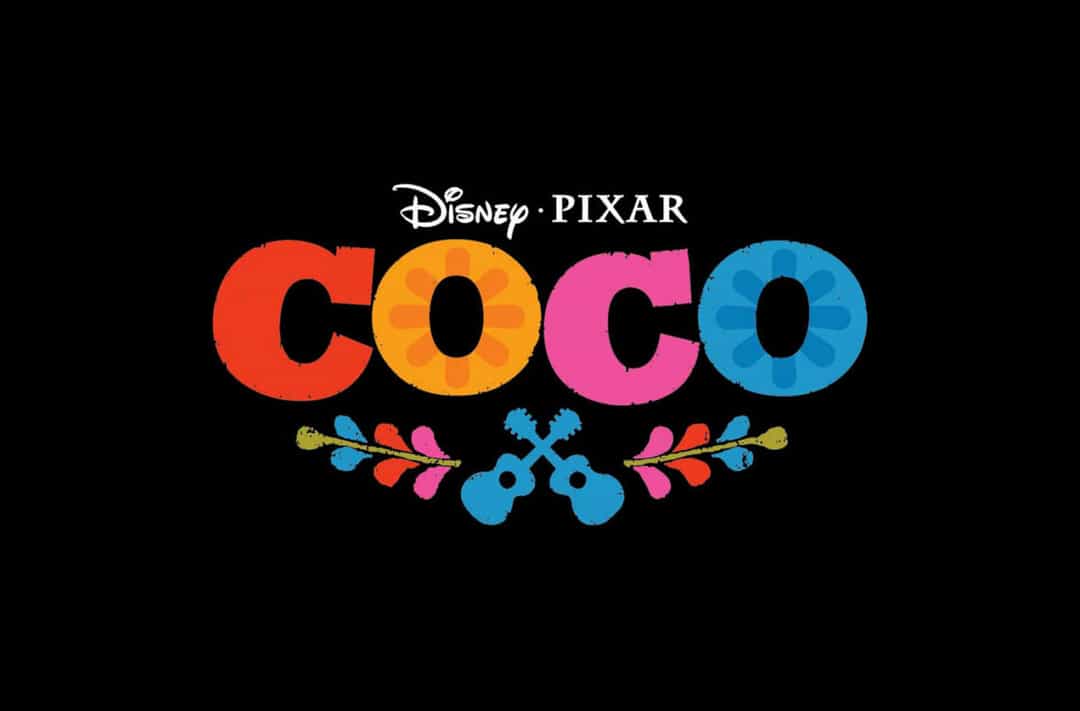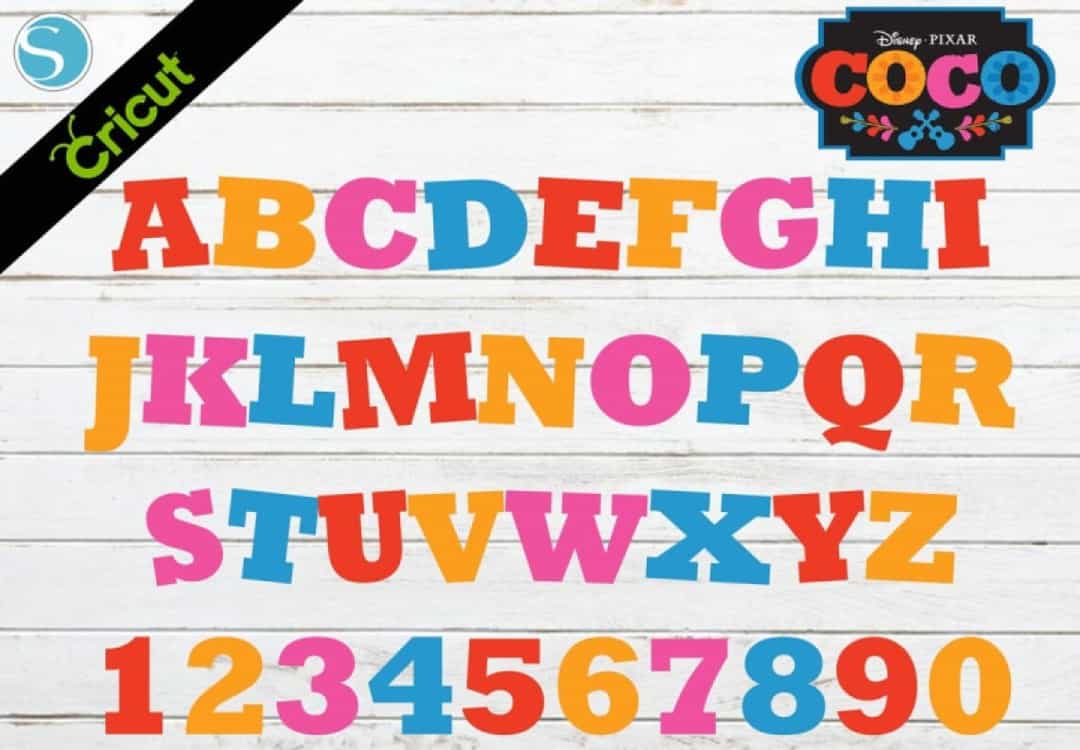
The Slab Serif font called Coco was designed by Franco Fernandez and is among the highest quality fonts available for free non-commercial use. This comprises the alphabets ‘a’ to ‘z’ and ‘A’ to ‘Z’, and some other characters.